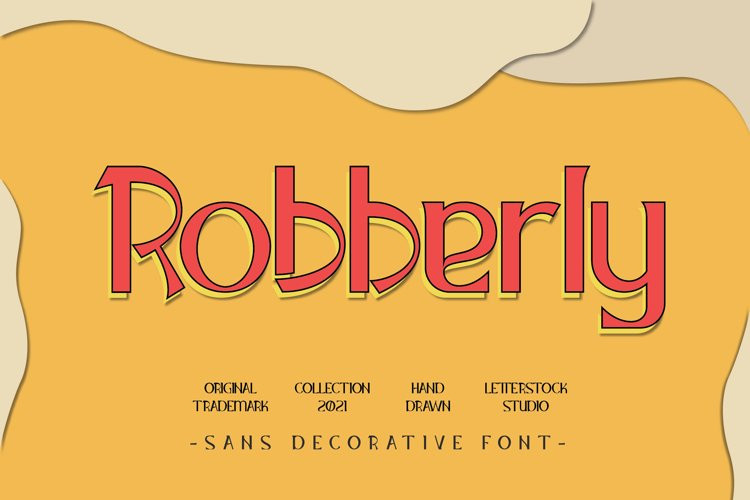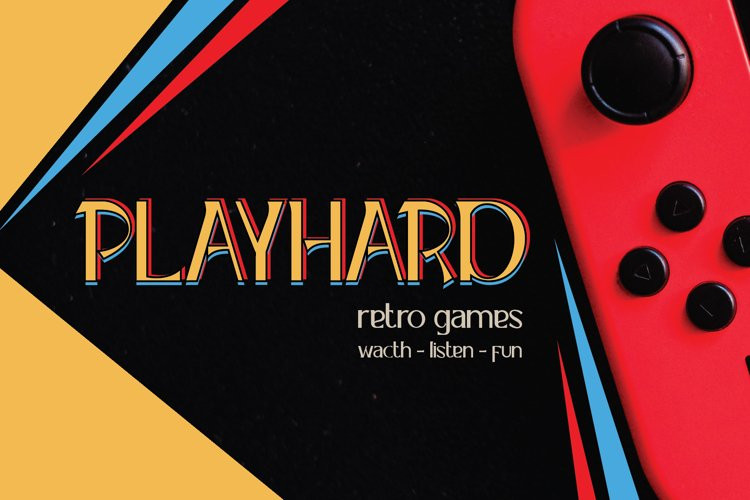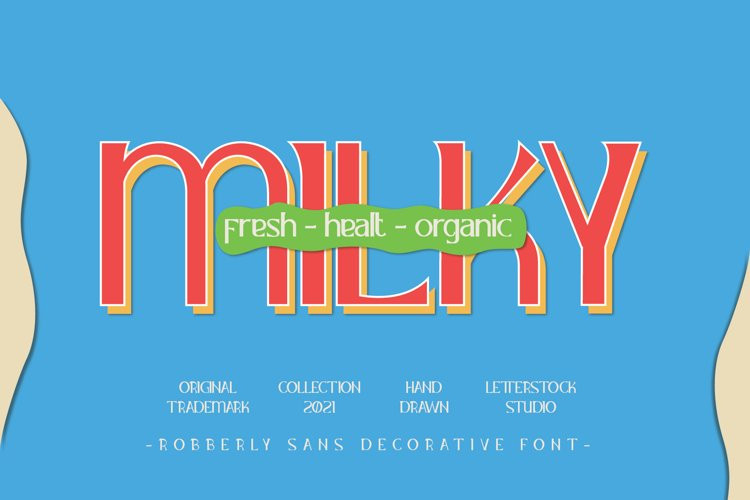
Robberly Font
This pair was inspired by the retro games poster design that i saw on some coffee shop, It was crafted by hand specially to add natural handmade feeling in its brand identity than i make it clean with pentool.
Robberly Font is very good looking in logo, poster design, plyer design, movie poster design, labels, product packaging, invitations, advertising and others.